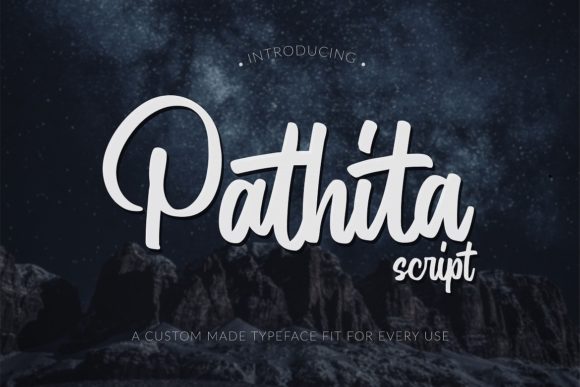
Step into the world of Pathita, a script font family that embodies grace and sophistication. This exquisite creation by Graphue captivates with its elegant touch, beckoning you to explore a world of creative possibilities.
Pathita's delicate strokes and flowing curves dance across your screen, evoking a sense of timeless beauty. Its luxurious character set adds an irresistible charm to your designs, turning them into visual masterpieces. Whether you're crafting wedding invitations, designing logos, or creating social media graphics, Pathita adds a touch of magic that leaves a lasting impression.
With its versatility, Pathita effortlessly adapts to a myriad of design styles. Adorn your websites with its graceful presence, allowing your words to flow with elegance. Transform your branding materials into works of art, conveying your brand's message with undeniable charm. Pathita breathes life into your creative projects, making them stand out from the crowd.
Unleash your creativity and let Pathita guide you to new heights of design excellence. Its distinct and timeless style ensures that your creations will remain relevant and captivating, transcending the boundaries of time. Join the countless designers who have fallen in love with Pathita's allure and experience the magic it brings to your artistic endeavors.
Embrace Pathita, the ultimate font companion for those seeking to create truly remarkable designs. Its enchanting beauty and versatility will elevate your projects to new heights, leaving your audience captivated and inspired. Let Pathita ignite your imagination and embark on a creative journey that knows no bounds.